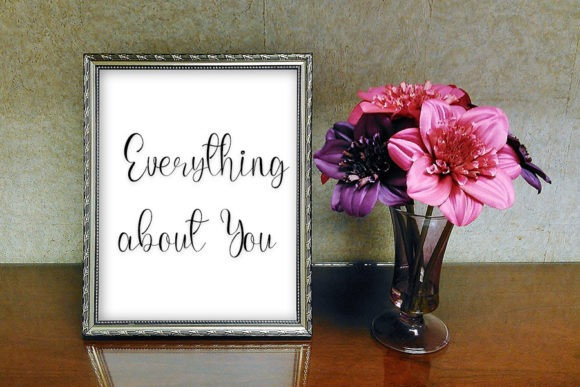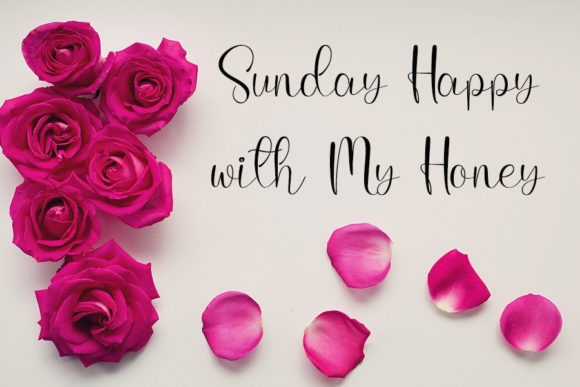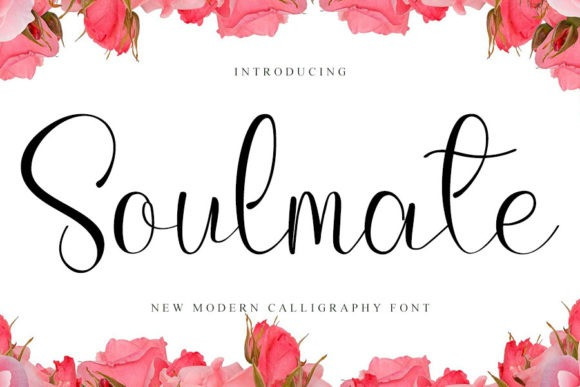
Soulmate Typeface
Soulmate Script Font is a delicate, elegant and flowing handwritten font. It has beautiful and well balanced characters and as a result, it matches a wide pool of designs. Add it to your most creative ideas and notice how it makes them come alive!